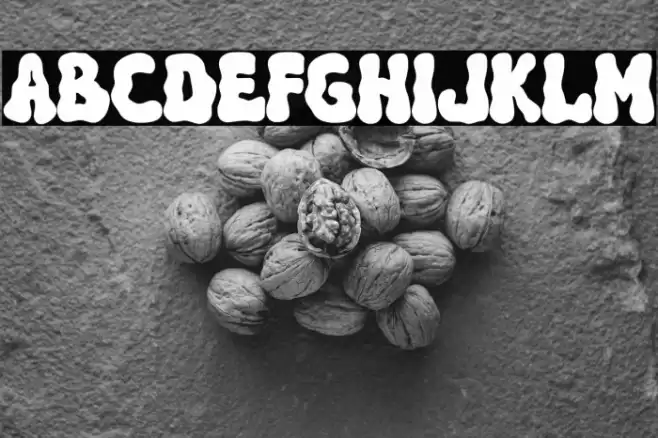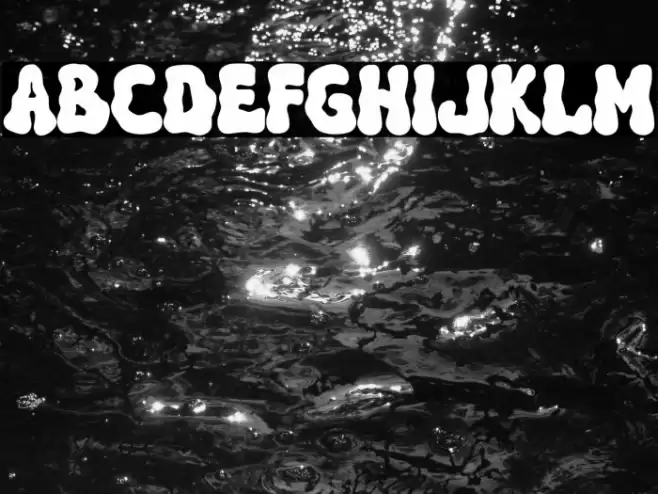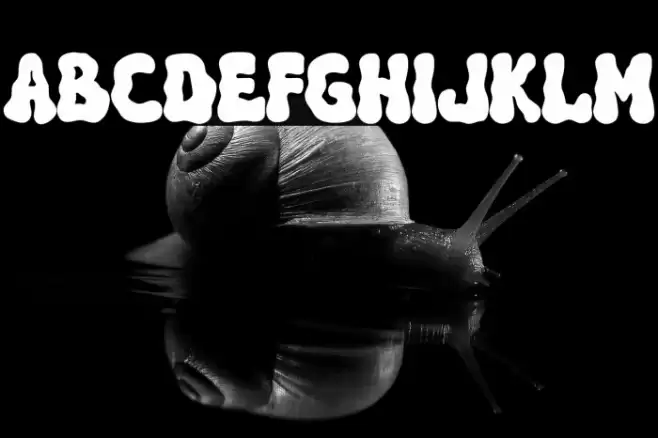
FolkloreDEMO-Regular Font
FolkloreDEMO-Regular Description
This font features a bold and playful design with thick, rounded strokes that give it a bubbly and whimsical appearance. The characters are uniformly wide, creating a sense of balance and consistency across the alphabet. The style is reminiscent of retro or vintage designs, with a touch of modern flair. The boldness of the letters makes it highly legible and attention-grabbing, suitable for various creative applications. Its unique character shapes and overall aesthetic make it ideal for projects that require a fun and engaging typeface.
A bold, playful font with thick, rounded strokes and a whimsical retro style from Uncategorized fonts.
- Proposed Projects: Ideal for children's books, playful branding, posters, and creative advertising campaigns.
- Overall Style: Vintage